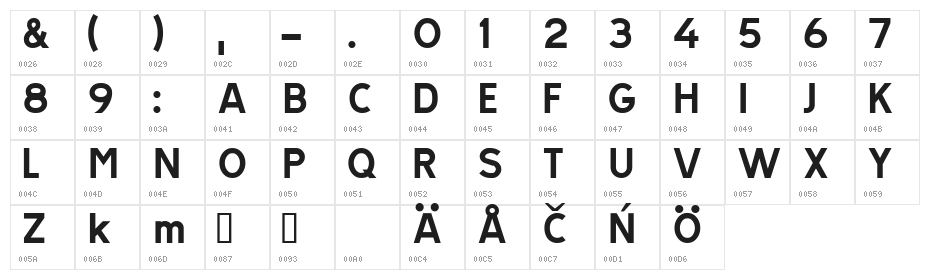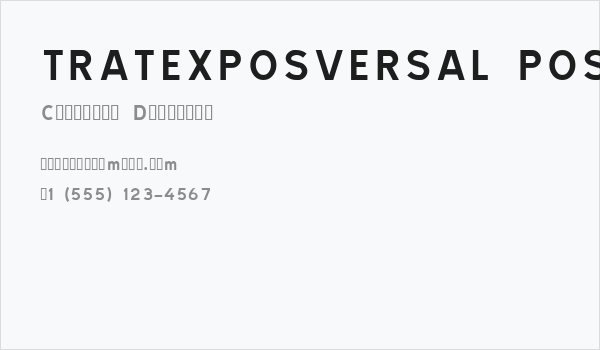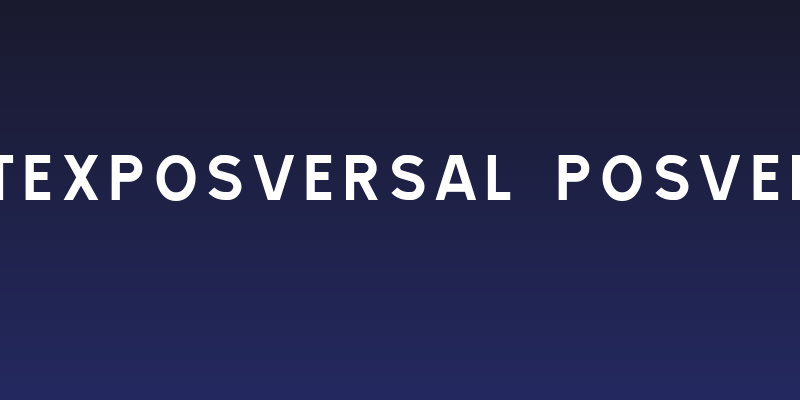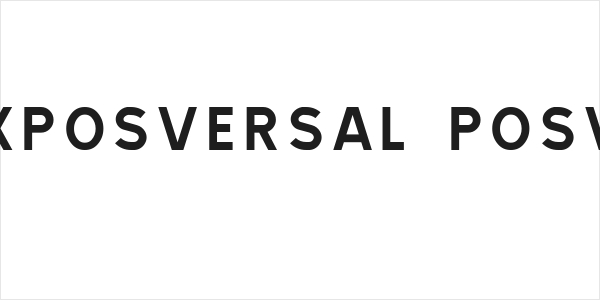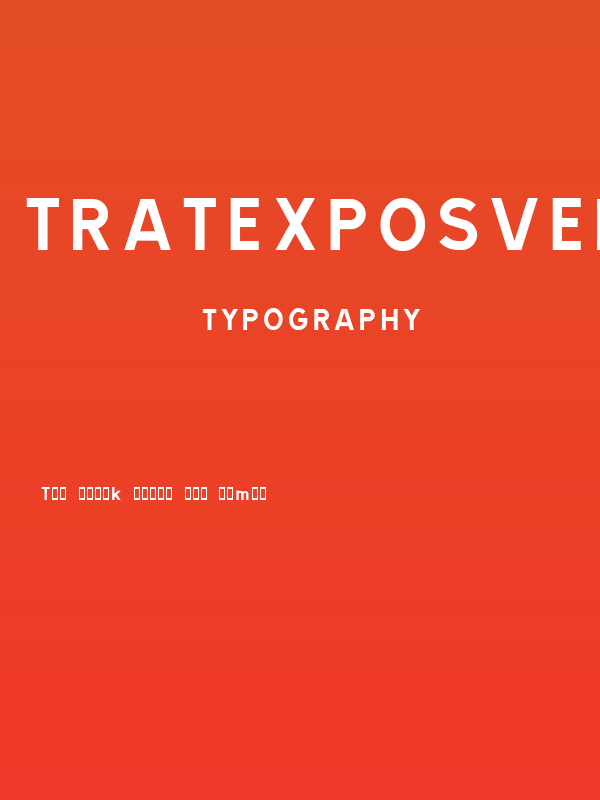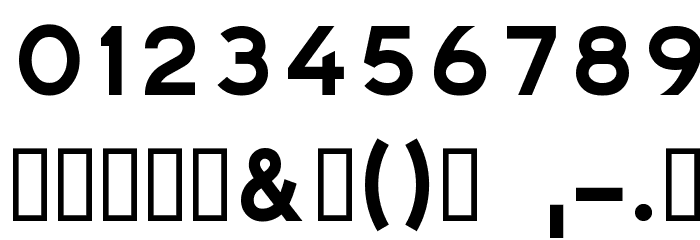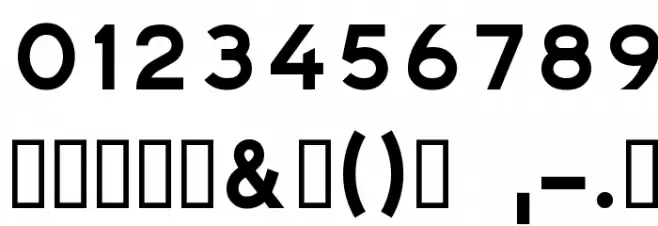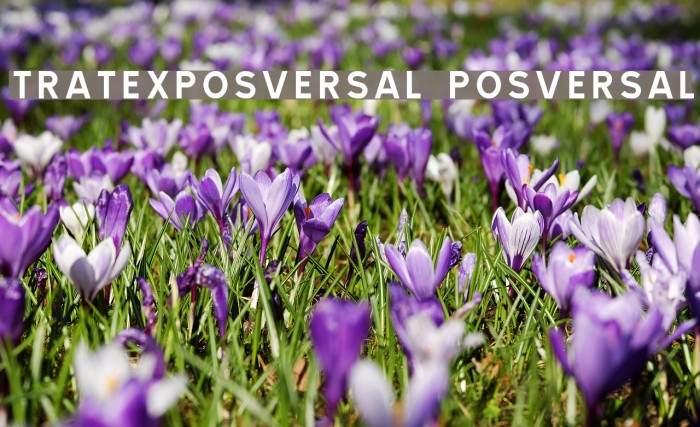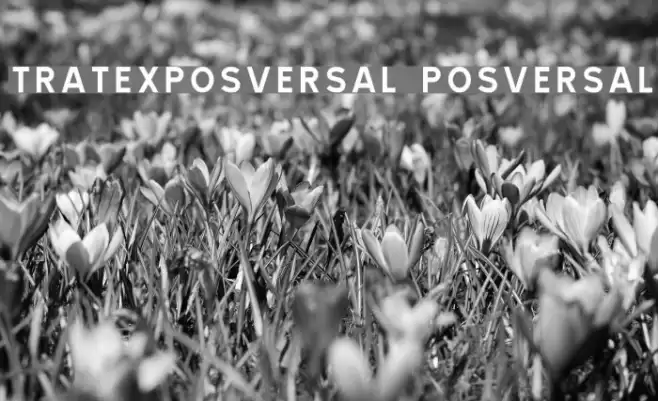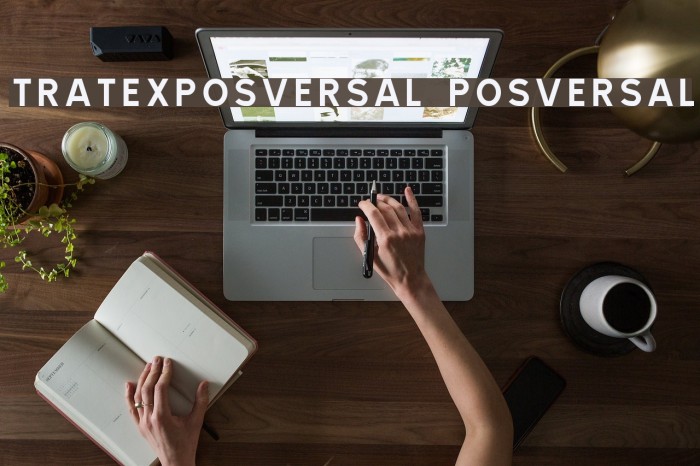
TRATEXPOSVERSAL Font
✎ Sans Serif
TRATEXPOSVERSAL Description
This font features a clean and modern sans-serif style with uniform stroke widths, providing a sleek and professional appearance. The uppercase and lowercase letters are well-proportioned, with a geometric influence that enhances readability. The numerals are clear and distinct, making them suitable for both digital and print media. Special characters are included, maintaining the font's cohesive design. Its simplicity and clarity make it versatile for various applications.
| Use Case | Headlines, Body text, Logos |
| Proposed Projects | Ideal for branding, web design, corporate materials, and editorial layouts. |